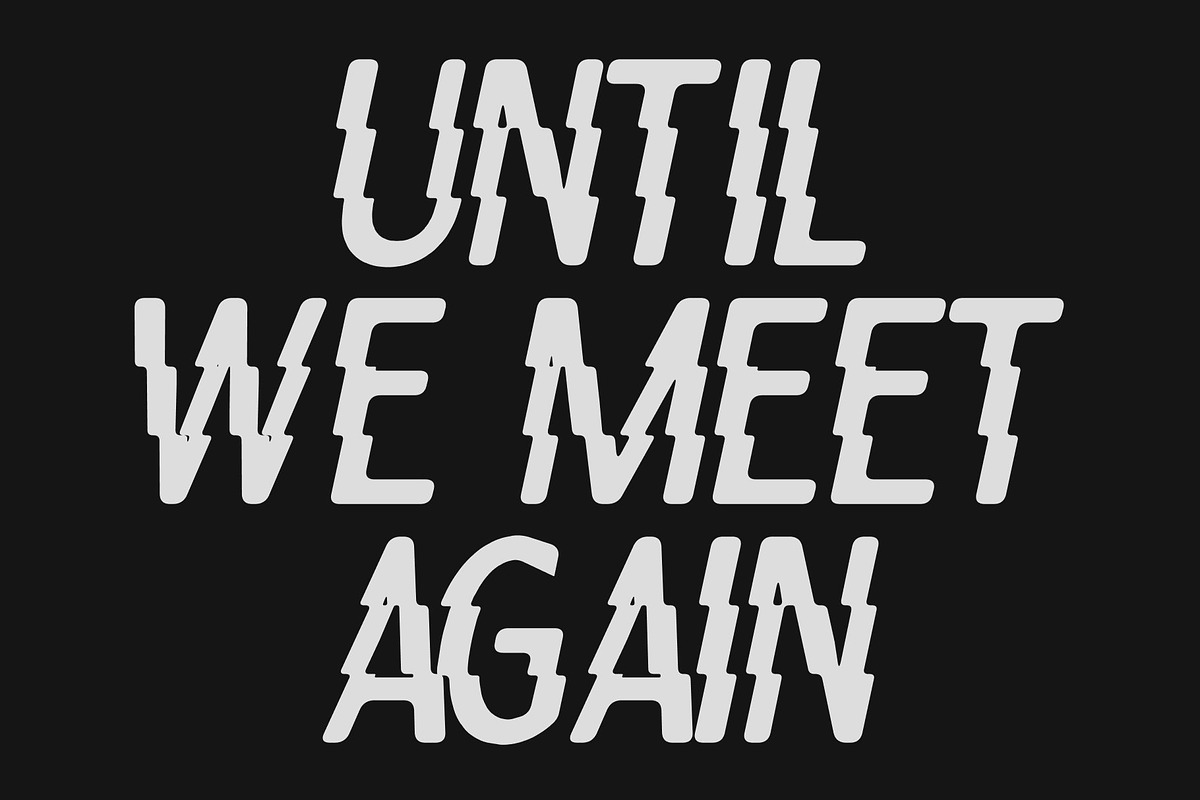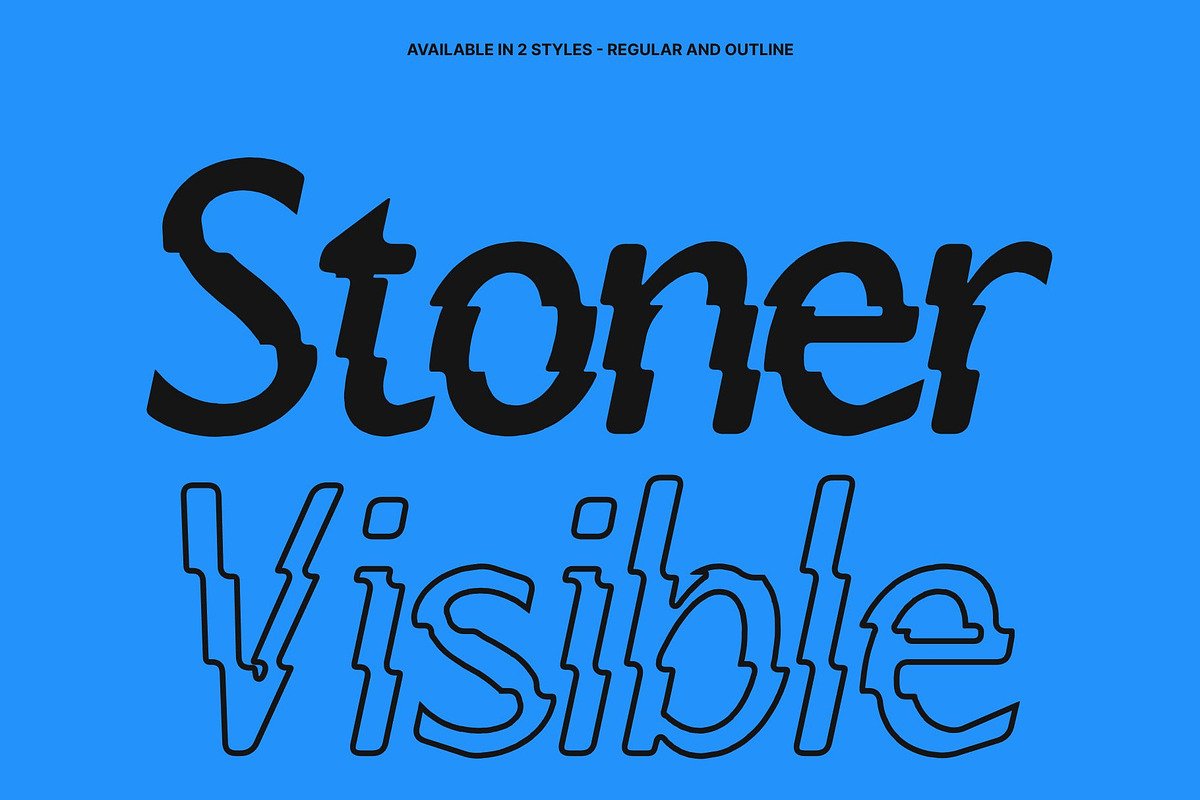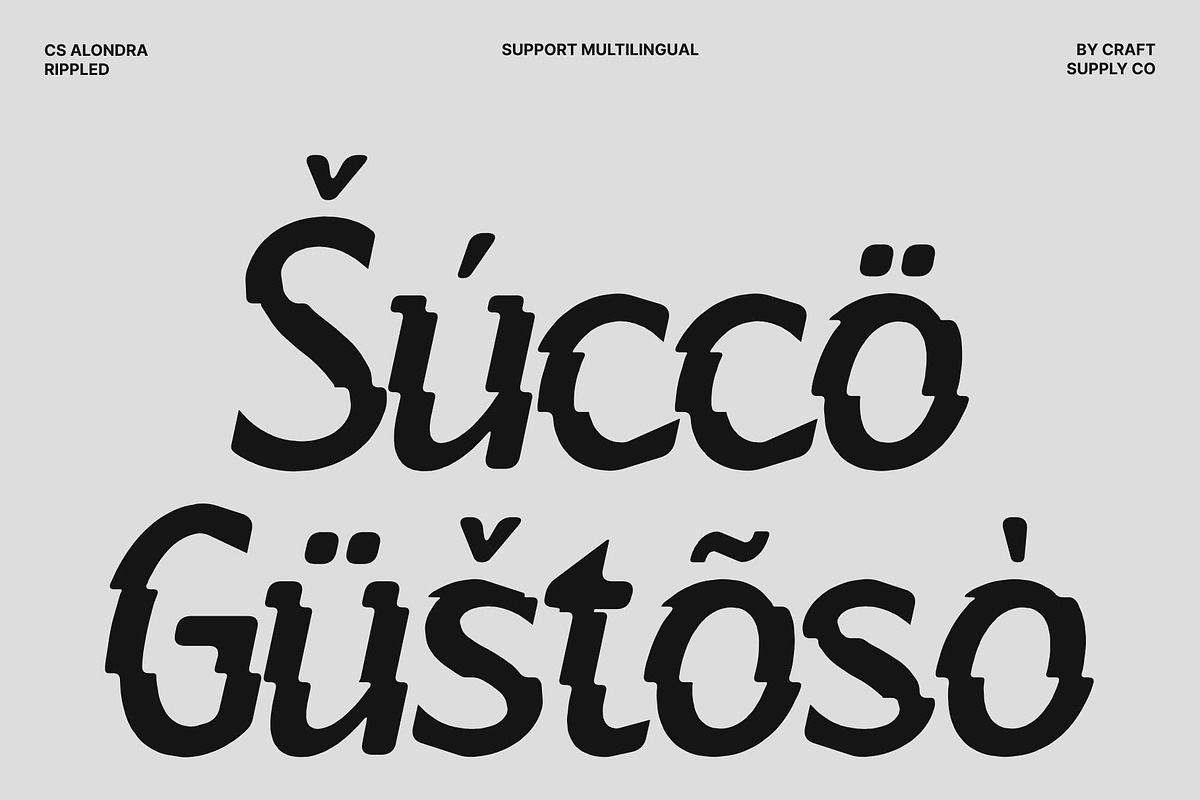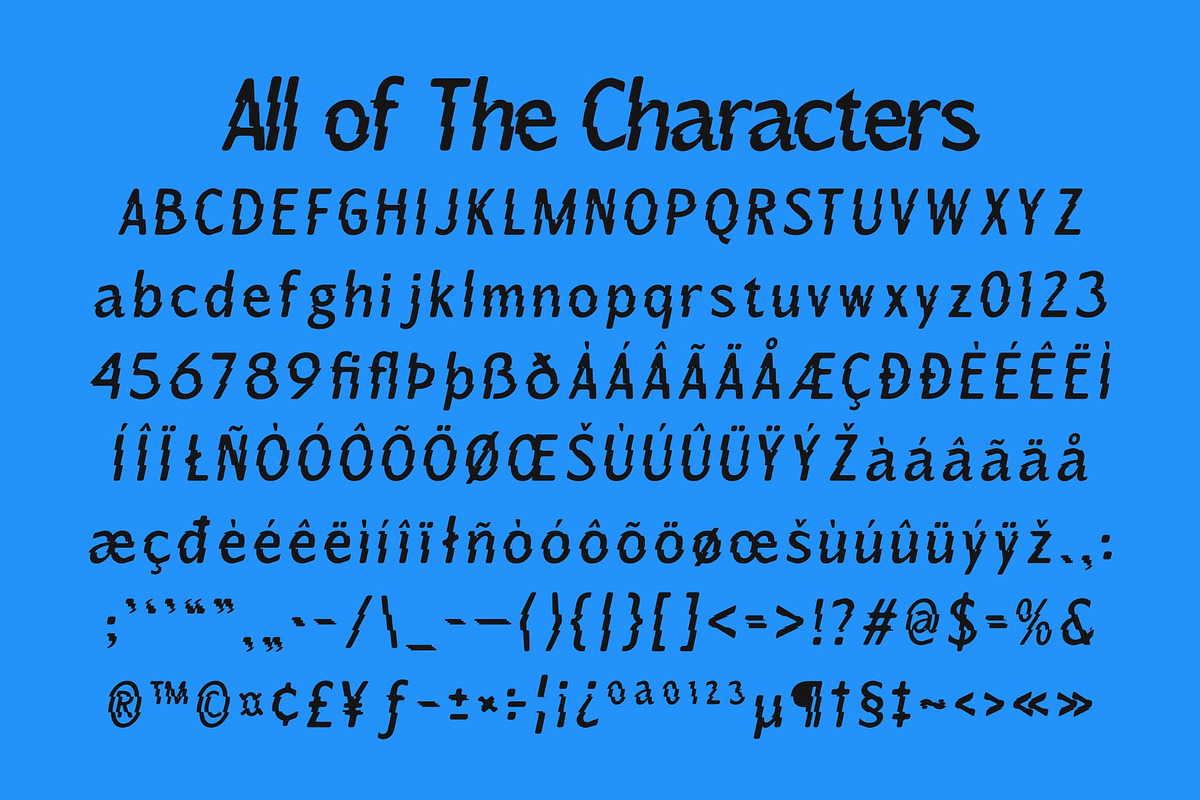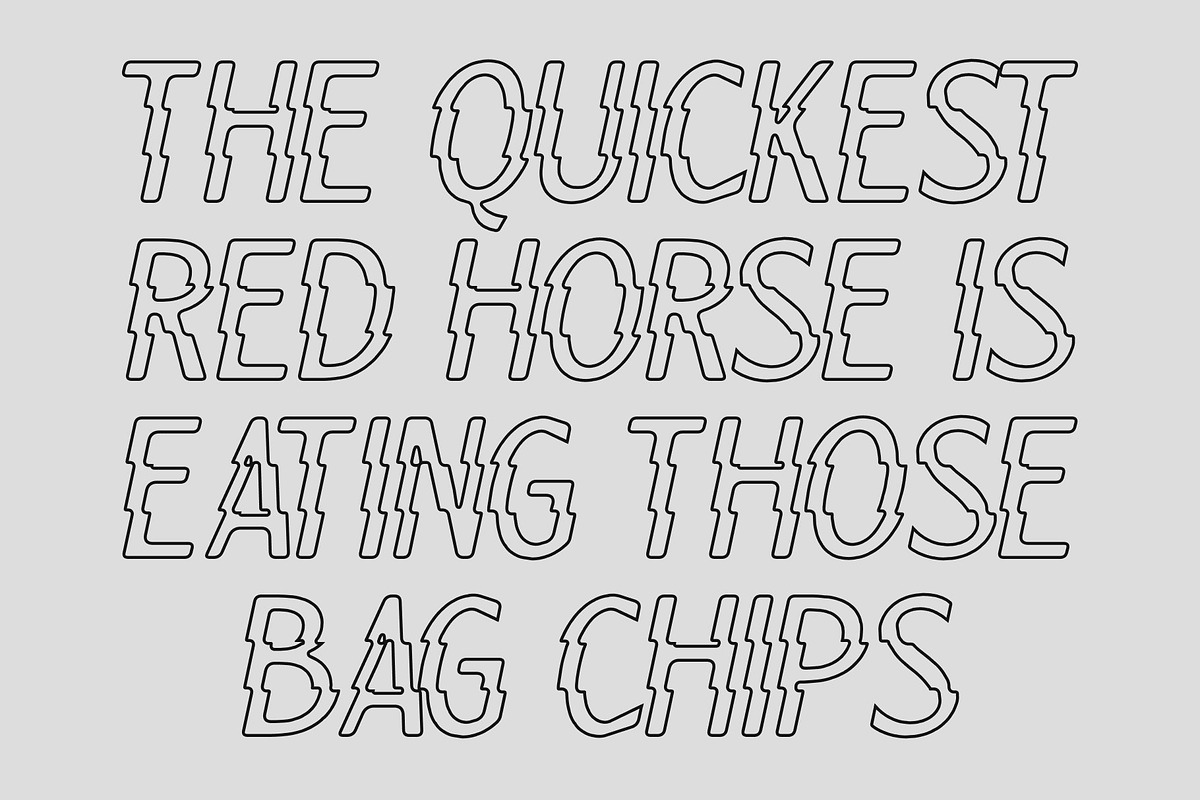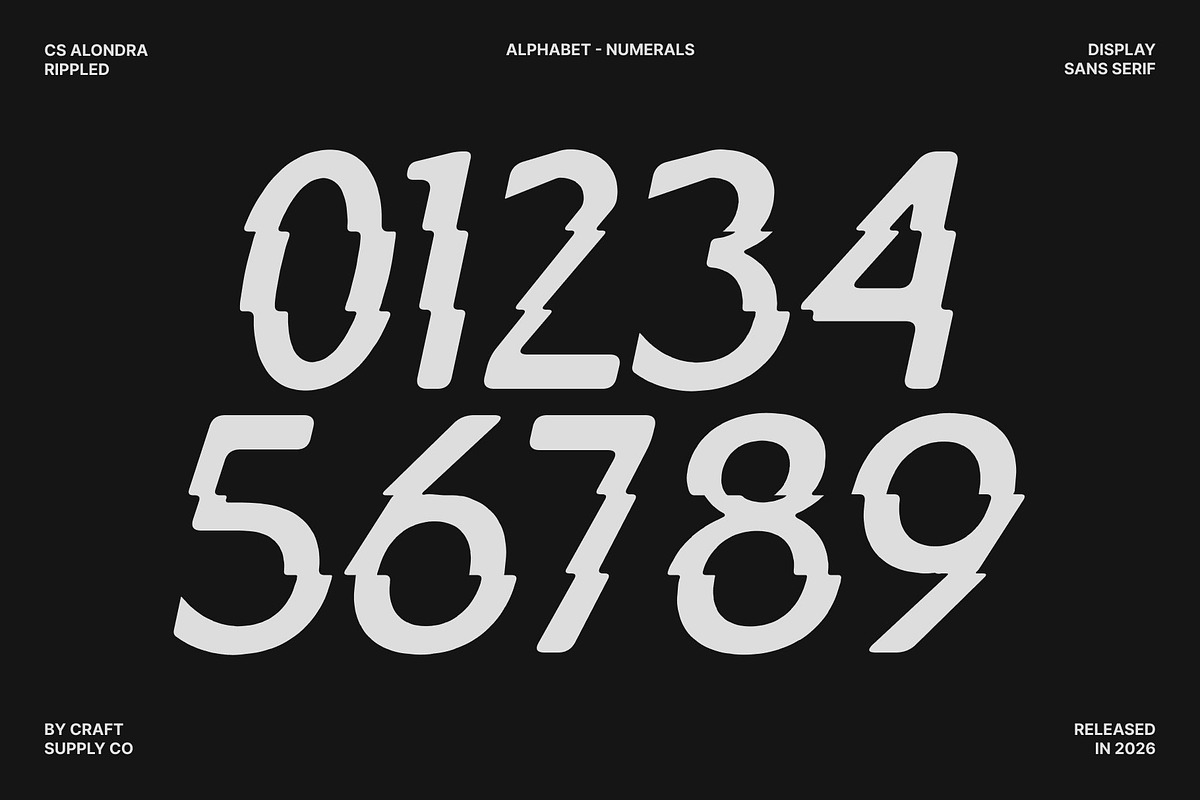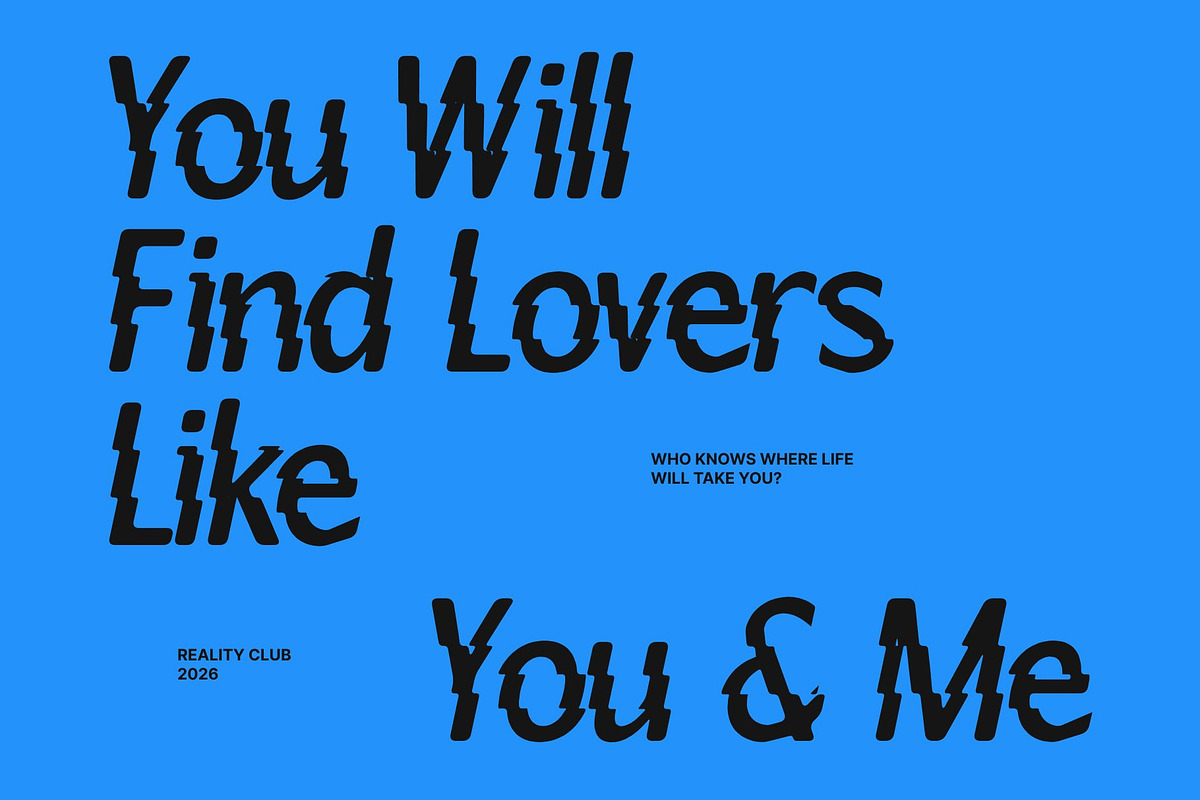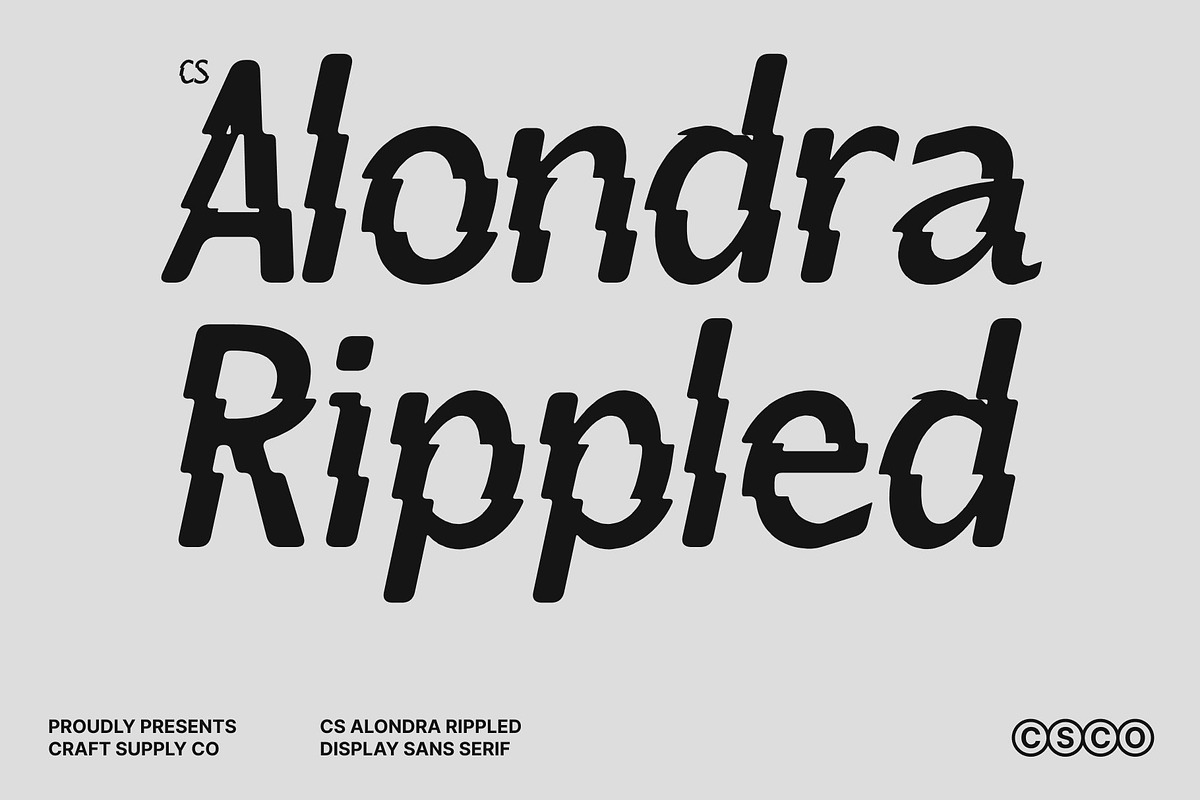
CS Alondra Rippled
CS Alondra Rippled – Modern Professional Font with Fluid Elegance
Clean and Elegant Sans Serif Design This is a modern sans serif font designed to communicate clarity, elegance, and professional sophistication. Its clean construction and minimalist approach create a refined visual tone that feels polished and highly readable. The simple yet confident letterforms ensure a sleek appearance that enhances content without distraction.
Versatile for Corporate Branding and Digital Media Built for flexibility, this font adapts effortlessly across corporate branding, marketing materials, websites, and digital platforms. Its straightforward structure ensures a professional impression while maintaining a modern and approachable character. Whether used in brand identities, promotional campaigns, or interface design, the font maintains visual consistency and reliability across different mediums.
Balanced Proportions for Modern Appeal The balanced proportions and thoughtful stroke variations give this font a distinctive yet subtle personality. These carefully crafted details add visual interest while preserving the font’s clean and structured identity. The result is a typeface that feels contemporary and adaptable, suitable for everything from business presentations and editorial layouts to product packaging and modern advertising.
Rippled Effect for Subtle Contemporary Motion The signature rippled distortion introduces a gentle sense of movement inspired by water reflections and flowing surfaces. This effect adds depth and modern energy without compromising the font’s professional character. It enhances visual storytelling and brings a fresh, dynamic feel to branding, digital campaigns, and creative presentations.
CS Alondra Rippled Regular
CS Alondra Rippled Outline